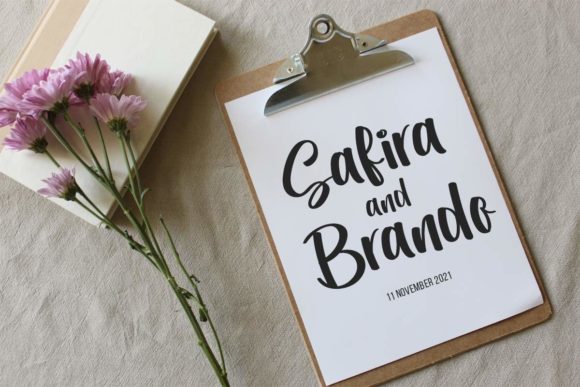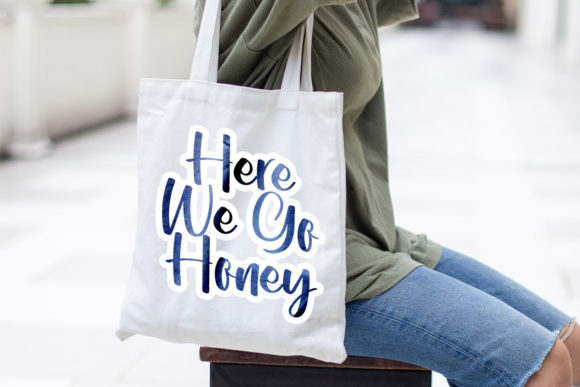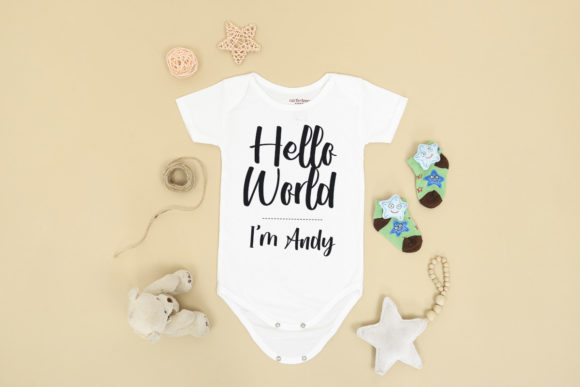
Snowflake Script Font
About Snowflake Script Font
Snowflake Script is a lovely script font featuring charming, playful characters that seem to dance along the baseline. Add this font to your most creative ideas, and notice how it makes them stand out!